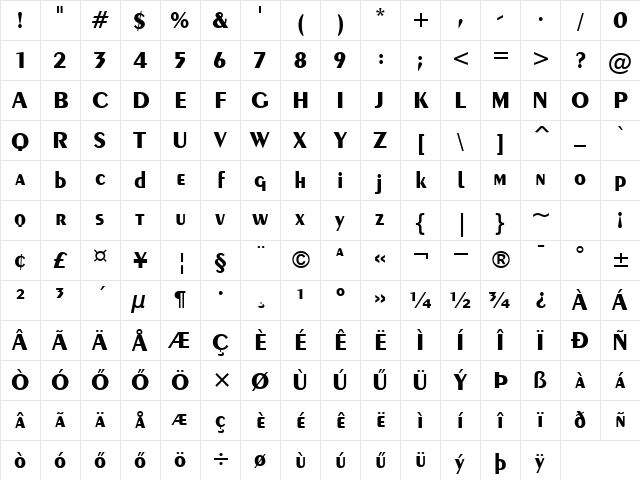
H_Exotic 350 Bd BT Regular
Design Context for H_Exotic 350 Bd BT
H_Exotic 350 Bd BT is a composed and adaptable typeface that performs quietly and consistently across a wide range of design contexts. Its bold stroke weight gives it real presence on the page.